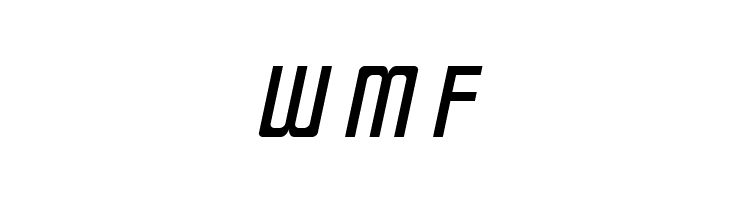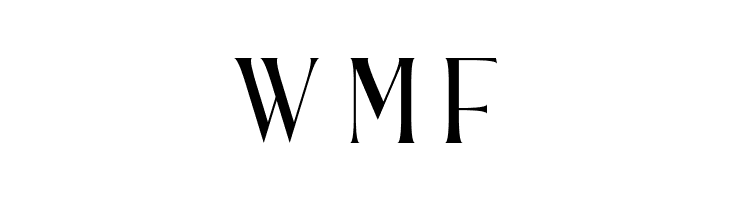
A cursive, elegant font with flowing lines and a modern twist.
Ornamental and decorative border and flourish glyph set.
A modern, oblique font with a sleek, futuristic design.
A decorative font with whimsical, hand-drawn illustrations and playful text.
A playful, bold font with rounded edges and a friendly appearance.
A bold, outlined font with a playful and cartoonish style.
A bold, rounded font with a playful and friendly style.
An intricate decorative font with elaborate ornamental designs.
An ornate, decorative font with intricate swirls and flourishes.
Highly decorative ornamental flourish font for embellishments.
A bold, playful font with rounded edges and a cohesive, friendly style.
A bold, modern font with a unique diagonal stripe pattern.
An intricate and decorative design with elaborate swirls and flourishes.
A bold, decorative font with classic and modern elements, featuring sharp serifs and elegant curves.
A modern, high-contrast sans-serif typeface with elegant strokes.
A modern, elegant font with elongated letterforms and sharp edges.
A graceful, handwritten script font with thin, flowing strokes.
A bold, classic serif font with strong serifs and a traditional appearance.
A bold, angular font with a strong geometric style.
A bold, geometric font with a futuristic, industrial style.
The image contains decorative elements, not a standard font.
A playful, handwritten font with smooth curves and a casual style.
A sophisticated handwritten font with elegant, flowing lines and a dynamic slant.
A playful, bold, and outlined font with a modern and fun style.
A playful, elegant script font with a handwritten style.
A bold, decorative script font with intricate line work and flowing curves.
A bold, brush-stroke font with a raw, expressive style.
A playful, hand-drawn font with tall, narrow characters and a whimsical style.
A dynamic and elegant script font with flowing, slightly slanted letterforms.
A dynamic and elegant script font with fluid, slanted letterforms.
A bold, playful font with rounded, outlined characters perfect for fun and energetic designs.
A bold, decorative script font with flowing cursive elements.
A whimsical, Halloween-themed font featuring playful hand-drawn illustrations.
A collection of festive and decorative holiday-themed illustrations.
A dynamic and flowing script font with elegant curves and a slightly slanted style.